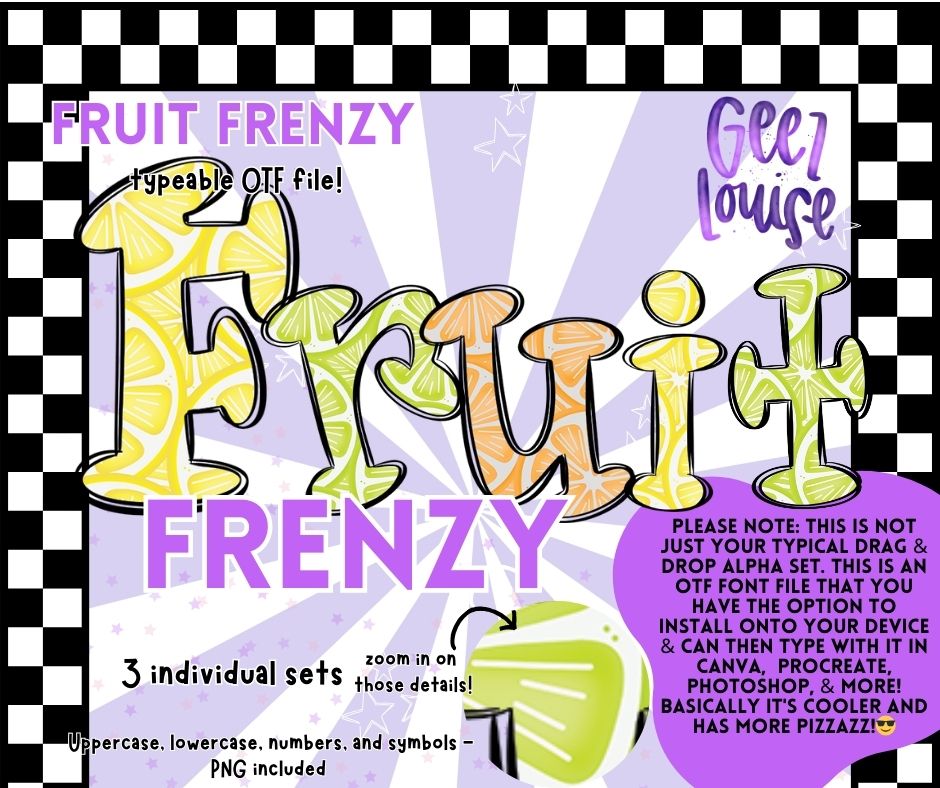
Fruit Frenzy – OTF Font + PNG Alpha Set | Bold & Fun Fruit-Inspired Letters
Turn your designs into a juicy explosion of fun with Fruit Frenzy – a vibrant and playful OTF font with fruity personality! 🍊🍇 This typeable font file isn’t your average drag-and-drop alpha set — it’s fully installable, so you can type directly in Canva, Procreate, Photoshop, and more!
Each letter bursts with citrusy goodness, featuring fun fruit textures in bold, bubbly lettering. Whether you're crafting eye-catching social media graphics, kid-friendly designs, party invitations, or summer-themed merch, Fruit Frenzy brings the perfect splash of color and whimsy.
✅ Bold fruity designs featuring oranges, lemons, limes, and more
🧃 Gives your projects a zesty, summer-fun vibe